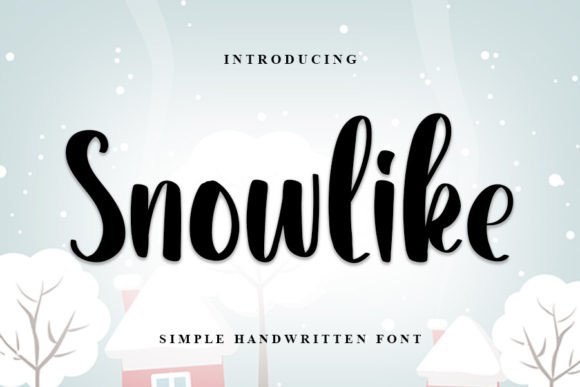
Unveil the elegance of Snowlike Font, the captivating script font family that brings a touch of timeless charm to your digital creations. Inspired by the enduring beauty of calligraphy, Snowlike embodies a contemporary spirit with its impeccable form and balanced design. Discover the limitless possibilities of Snowlike, meticulously crafted to enhance the visual appeal of your projects and leave a lasting impression.
With its graceful curves and delicate strokes, Snowlike Font captures the essence of handwritten artistry and adds a personal touch to your designs. Perfect for love letters, wedding invitations, greeting cards, and social media posts, Snowlike transforms ordinary words into heartfelt expressions of affection.
Dive into the world of Snowlike and explore its rich character set, featuring a diverse range of glyphs and ligatures. Unleash your creativity and experiment with different letter combinations to achieve unique and visually stunning results. Snowlike's PUA encoding ensures effortless access to these special characters, making it a versatile font that adapts seamlessly to your design needs.
Whether you're a seasoned designer or just starting out, Snowlike Font is your perfect companion for creating captivating visuals that resonate with your audience. Its user-friendly design and extensive character support make it a breeze to use, allowing you to focus on expressing your creativity and crafting meaningful connections through your designs.
Embrace the timeless elegance of Snowlike Font and elevate your projects to new heights. With its charming personality and versatility, Snowlike is the perfect choice for adding a touch of sophistication, romance, and individuality to your digital creations.